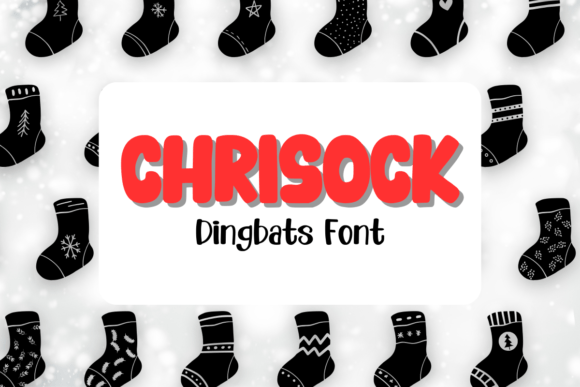
Embark on a joyous Christmas journey with Chrisock, the captivating dingbat font tailored to ignite the spirit of the season. Picture this: a font that transforms your text and graphics into a whimsical winter wonderland, adorned with delightful Christmas sock designs. Let Chrisock be your creative companion as you craft heartfelt holiday cards, enchanting decorations, and heartfelt messages brimming with festive flair. Its playful sock-shaped characters dance across your designs, adding a touch of Yuletide magic that's sure to warm hearts and spread cheer. From jolly snowmen socks to cozy reindeer socks, each character encapsulates the essence of Christmas, inviting a sense of wonder and merriment into your creations.
Chrisock isn't just a font; it's an artistic expression of the Christmas spirit. Its charming dingbat designs evoke feelings of nostalgia, warmth, and the sheer joy of the holiday season. Imagine your Christmas cards adorned with beautifully crafted text, each letter adorned with delicate Christmas socks. Or envision your holiday decorations, festooned with Chrisock's festive characters, bringing a touch of whimsy to your home. The possibilities are endless, and the magic is yours to create.
But Chrisock isn't just limited to holiday projects. Its versatility extends far beyond the Christmas season. Whether you're designing invitations for a winter wedding, creating whimsical posters for a children's event, or simply adding a playful touch to your everyday designs, Chrisock seamlessly adapts, bringing its unique charm to any occasion. Its sock-shaped characters lend a touch of lightheartedness and fun, transforming ordinary text into extraordinary expressions of creativity.
So, embrace the magic of Chrisock and let your imagination soar. Its captivating designs will ignite your creativity, inviting you to create extraordinary designs that capture the spirit of the season and beyond. With Chrisock, every project becomes a delightful adventure, filled with wonder, whimsy, and the essence of Christmas cheer.